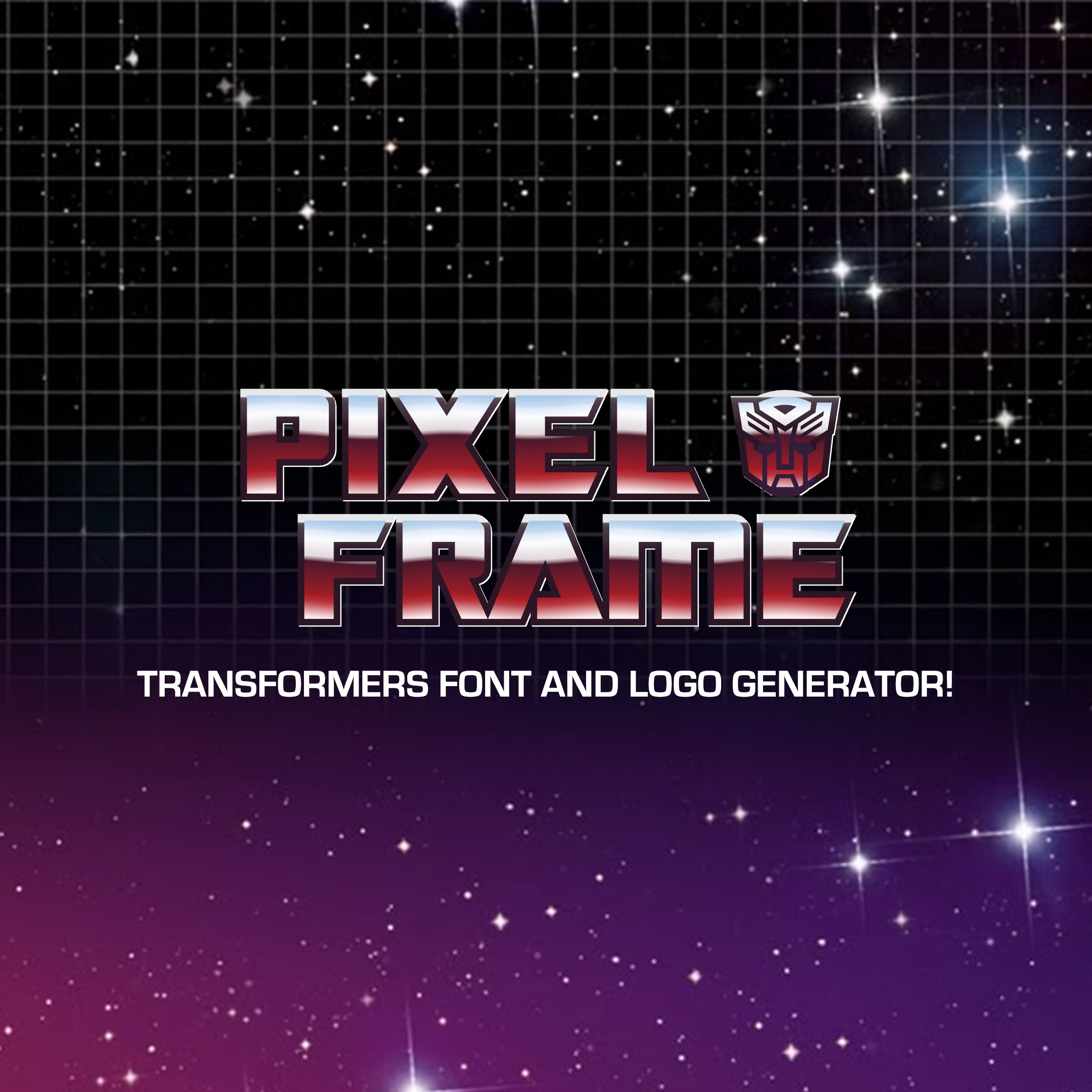
Choose Autobot or Decepticon with the Classic Transformers Logo & Font Generator
Through decades of reboots, reimaginings and spin-offs, the core elements of the classic Transformers logo have been left (mostly) intact – bold angular letterforms, chrome or metal surface effects, often with the inclusion of the stylized Optimus Prime icon. All are recreated here with this generator, letting you build a custom wordmark complete with the colorful metallic gradient, the staggered “staircase” lettering, and a faction badge icon of your choice.
How the Transformers Logo generator works: a layer-by-layer breakdown
Four distinct rendering passes come together to recreate the look of the original classic Transformers animated series logo. Each sample below renders live in your browser using the same font and drawing code as the generator itself — the demo word is "TRANS" with the Autobot icon attached.
Layer 1: White offset
The very back layer is a solid white duplicate of the lettering, nudged a small amount down and to the right. Shown here against a gray background so it is actually visible — on the finished logo it sits directly behind the other three layers, so only a thin bright edge ever peeks out.
Layer 2: Gradient stroke
Next comes a thick outlined stroke around every letter and the faction icon, filled with its own vertical gradient running from light gray through a warm charcoal. This establishes the dark structural outline of the wordmark. Because it sits at the true position rather than offset, it covers most of the white layer beneath it — only a sliver of white shows along the bottom-right edge now.
Layer 3: Faction badge
When a faction icon is selected, a solid circle is drawn directly behind it, sized relative to the letter height. It is drawn after the gradient stroke but before the final face layer, so the icon and its badge read as embedded into the wordmark rather than pasted on top.
Layer 4: Face gradient
The top layer is the fill everyone recognizes: the blue-to-red chrome sweep. On the live generator this gradient is subtly bent into a gentle wave, mimicking the way light catches a curved chrome surface. This layer sits above everything else, including the faction badge, so the final letterforms always read cleanly on top of the stack.
The four passes together — white offset, gradient stroke, faction badge, face gradient — produce the final result. Each one does something the others cannot: the offset adds a hint of dimension, the stroke establishes the dark structural edge, the badge grounds the faction icon into the design, and the face gradient delivers the chrome color read everyone associates with the logo. The same stack applies whether the input is a single short word or a full two-line phrase that wraps.
The Transformers franchise and its visual identity
Transformers launched in the United States in 1984, built from repackaged toy lines originally produced in Japan by Takara. Hasbro paired the toys with a cartoon and comic line, and needed a logo that could survive shrinking down to a toy box corner while still reading as bold and futuristic on a movie poster decades later.
The solution was a thick, angular typeface rendered in a vertical chrome gradient: pale blue at the top, fading through white, then plunging into deep red and near-black at the bottom. That gradient became as much a part of the brand as the letterforms themselves, giving the wordmark a metallic, almost liquid quality no matter what background it sat on.
The word itself split across two lines from the very first packaging, with "TRANS" sitting above "FORMERS" and offset slightly to the right, so the second line always reads as an extension of the first rather than a separate word. Small print, usually a tagline like "More Than Meets The Eye," tucked in beside the main lettering, and one of the two faction symbols, Autobot or Decepticon, could sit at the end of the wordmark to signal which side of the battle a given release belonged to.
What is unusual about the logo is how little it has changed since. Decades of new toy lines, animated series, and live-action films have each brought their own subtitle and color variations, but the core structure, the two staggered lines, the chrome gradient, the faction badge, has stayed recognizably intact. Few toy properties from the same era can claim a logo that has aged that gracefully across so many relaunches.
Themes and Creative Uses
The obvious use is recreating the wordmark exactly as it appears on packaging, but the layout invites plenty of variations. Swapping in a name, a nickname, or a made-up faction turns the same structure into a personalized logo for a gaming handle, a group chat name, or a fan project. Because the two lines and subtitle are all independent, short single-word logos and longer two-line phrases both stay readable without any manual adjustment.